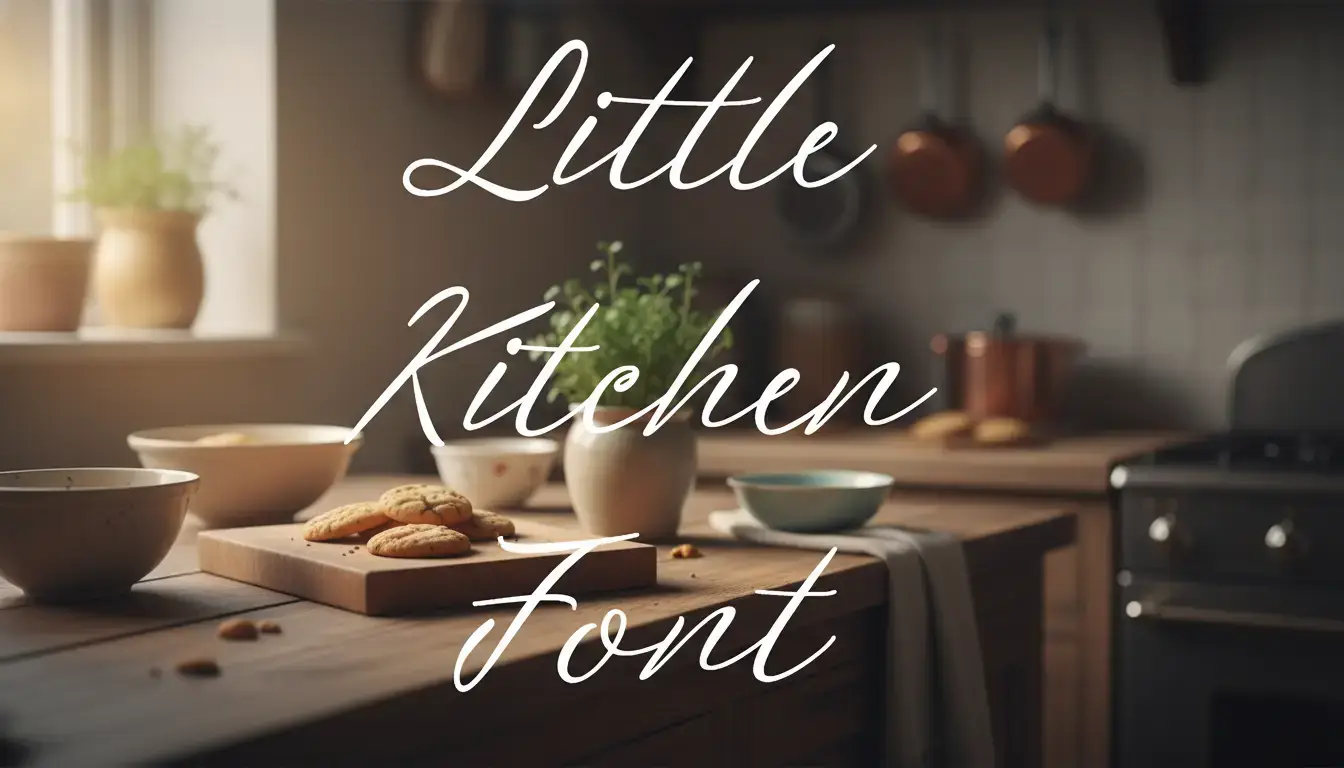
Little Kitchen Font
Little Kitchen
Little Kitchen is a script font made by Ayudia Creative. Its flowing, pen-made letters give names and short phrases a personal, polished look. It's a free download, and you can try it with your own text in the preview above first.
- Designer: Ayudia Creative
With complete upper and lowercase letters and all ten digits, Little Kitchen is ready for real wording, not just a single headline. Common punctuation such as &, !, ? and @ is included as well. It also has the accented letters you need for Spanish, French, Portuguese and Italian.
Designers usually reach for fonts like Little Kitchen when they're making wedding invitations, logos and signature-style headings. Script fonts read best in short bursts, so keep it to names, titles and one-line quotes. Skip all caps: script capitals are drawn to start a word, not to fill one.
Yes. Little Kitchen includes the accented letters needed for Spanish, French, Portuguese and Italian, so it works for more than just English.